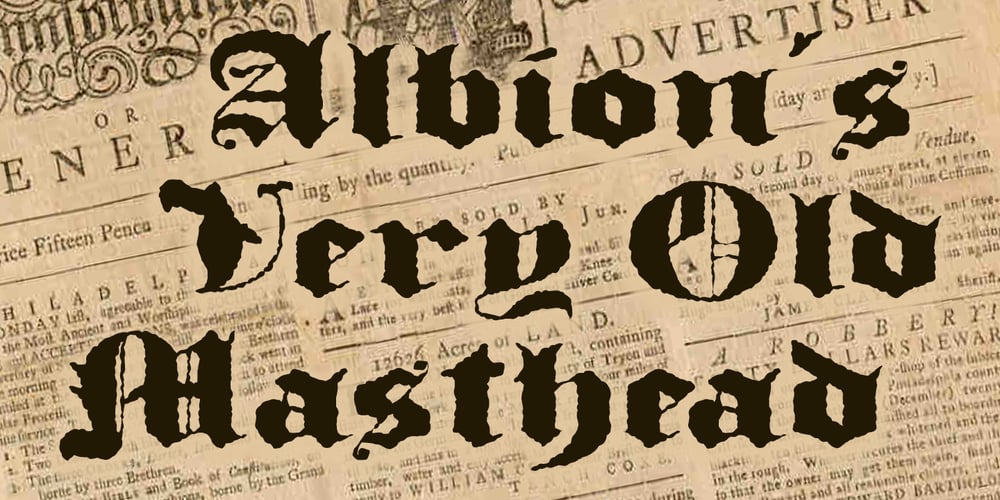
Albion’s Very Old Masthead Font Family was designed by Paul James Lloyd and published by Greater Albion Typefounders. Albion’s Very Old Masthead contains 1 styles and family package options. Albion’s Very Old Masthead is inspired by traditional newspaper mastheads. A heavy Black Letter which brooks no argument, and can be emphatic and refined (emphatically refined?) at the same time. Very Old Masthead has been deliberately weather to suggest that it has been set with timeworn, well-used, type.